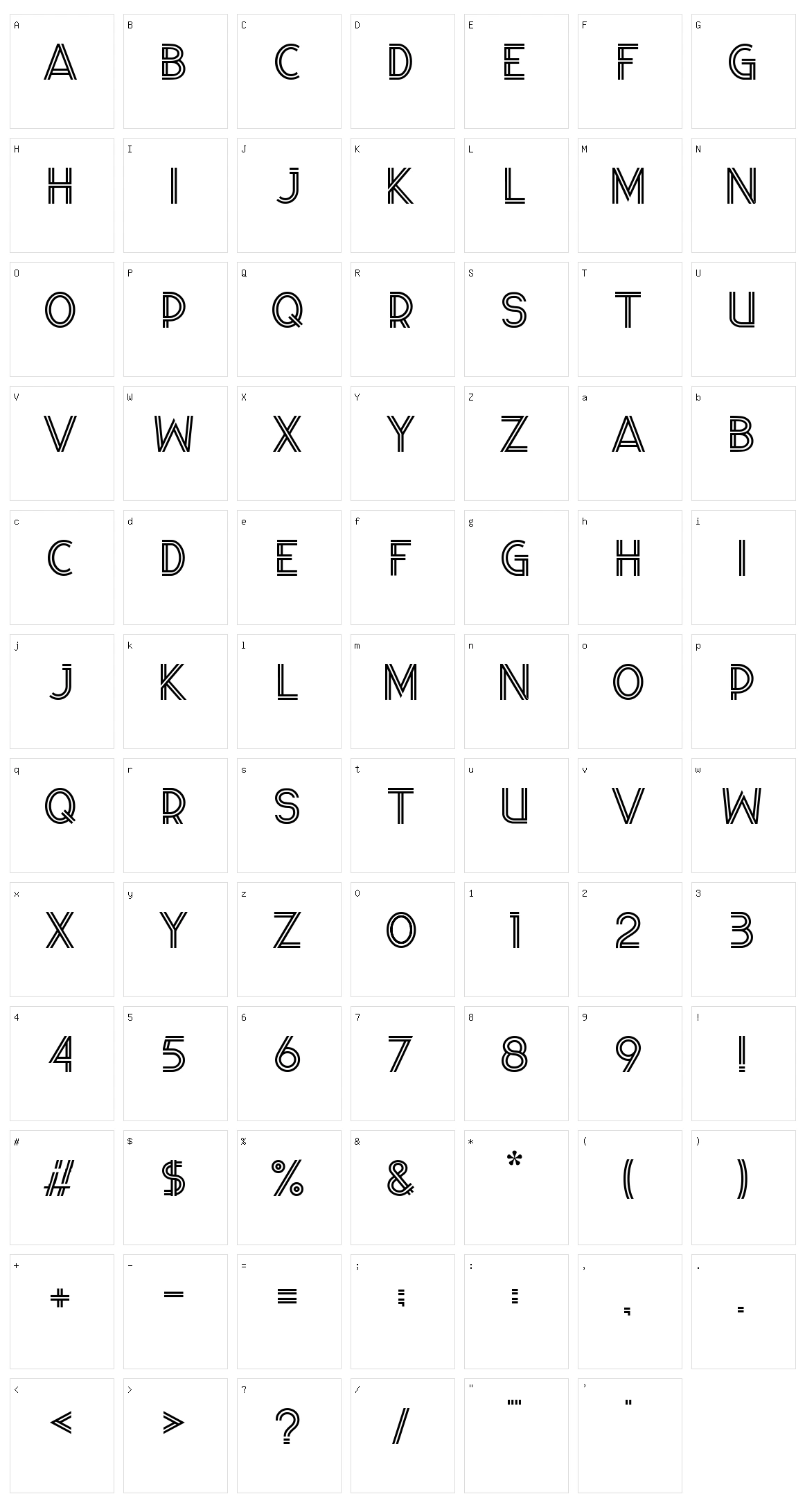
The free font Wander Brave is carefully designed by Heinzel Std, showcasing a thoughtful balance of creativity and usability and falls under the Retro font style. When you download the ZIP file, it contains only 17.13 KB of font files, making it lightweight and quick to download. Please review the license details below to understand permitted usage and distribution rights. If license information is not available, we recommend using this font for personal projects only or contacting the author directly for commercial usage permissions.